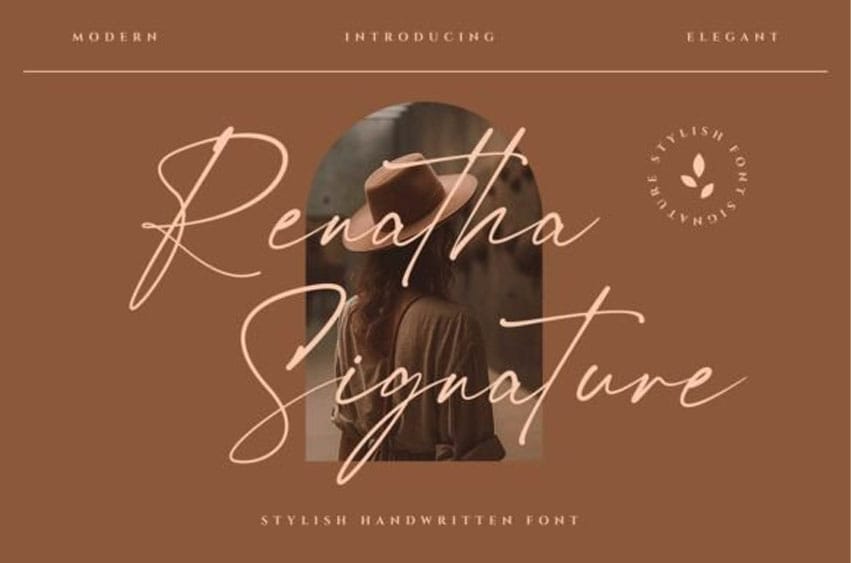
Renatha Signature Font is a delicate and graceful script font that embodies elegance and sophistication. Its flowing and fluid letterforms evoke a sense of beauty and refinement.
Perfect for luxurious branding, wedding invitations, and feminine designs, Renatha Signature adds a touch of glamour and charm. Elevate your projects with the timeless allure of Renatha Signature.